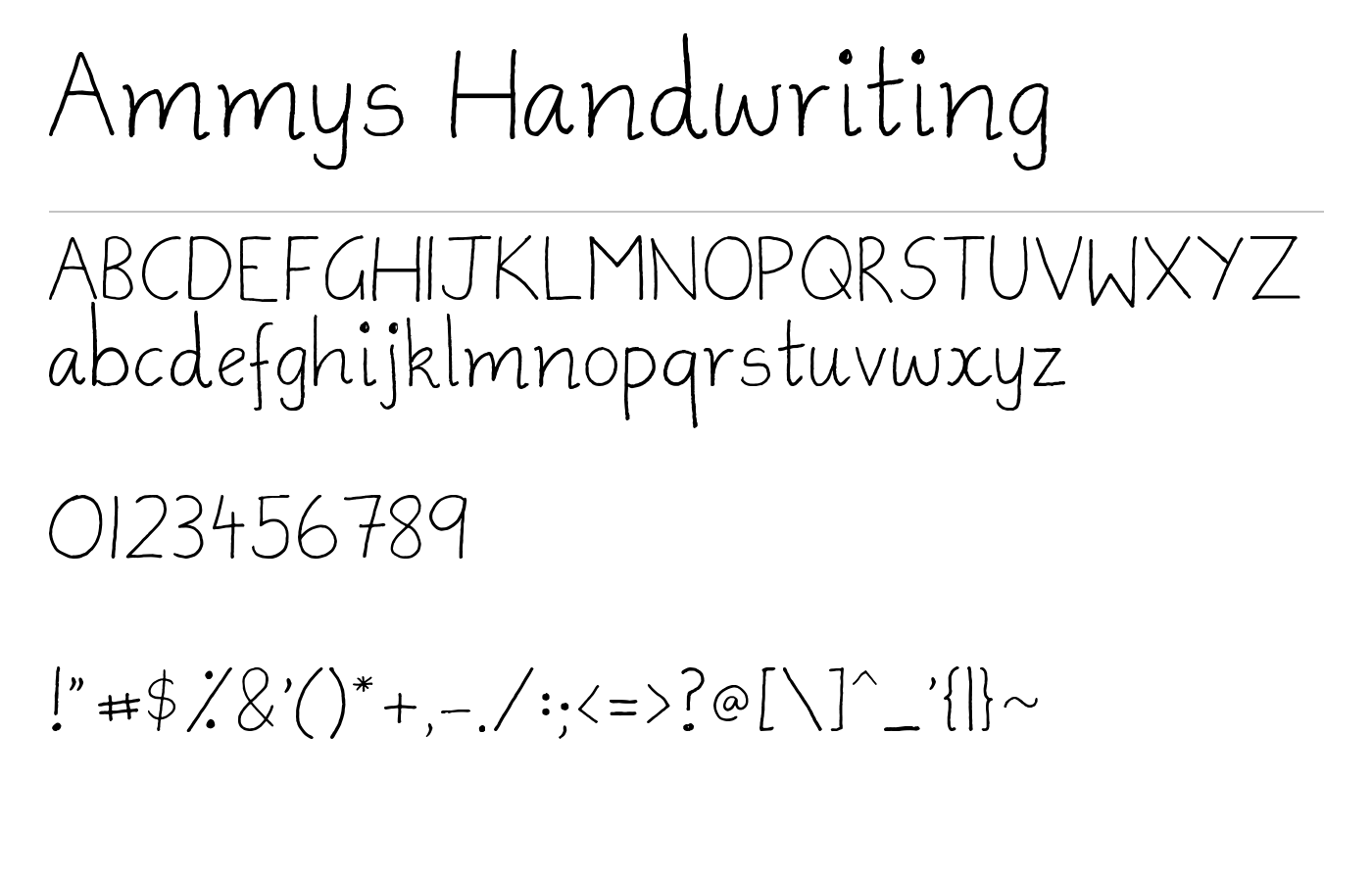
Ammys Handwriting is a charming, casual handwritten sans serif font that captures a natural, personal touch with its thin, irregular strokes and playful letterforms. Its slender, airy design and moderate x-height make it perfect for conveying a friendly, approachable, and informal feel, ideal for creative projects, invitations, casual branding, and lighthearted editorial use. This font works well where a unique, authentic handwriting style is desired to create warmth and personality.
Ammys Handwriting Font
About Ammys Handwriting Font
| Font family | Ammys Handwriting Font |